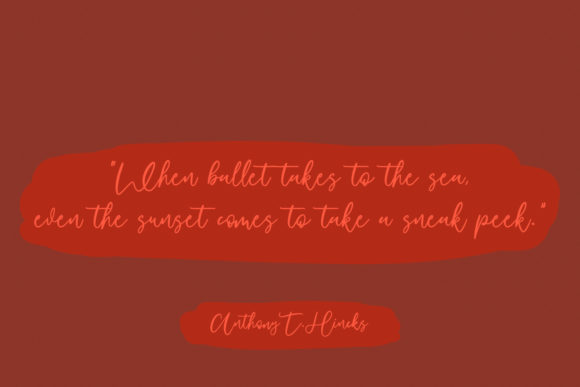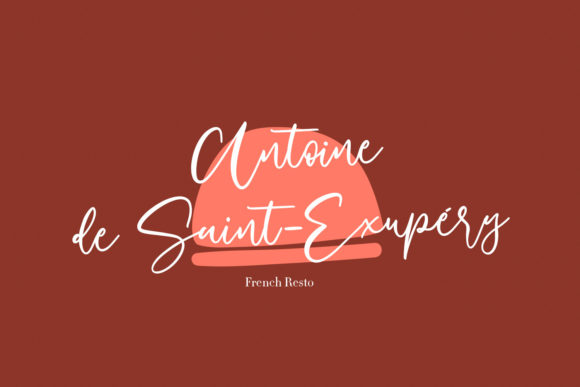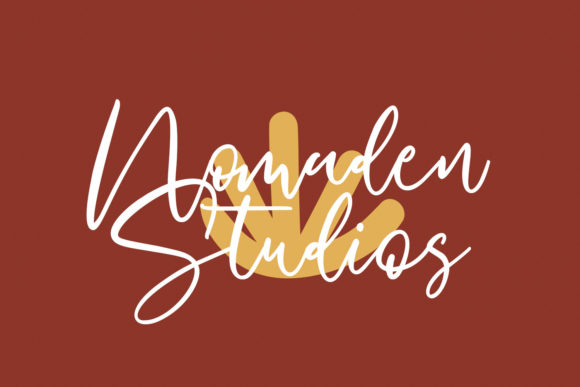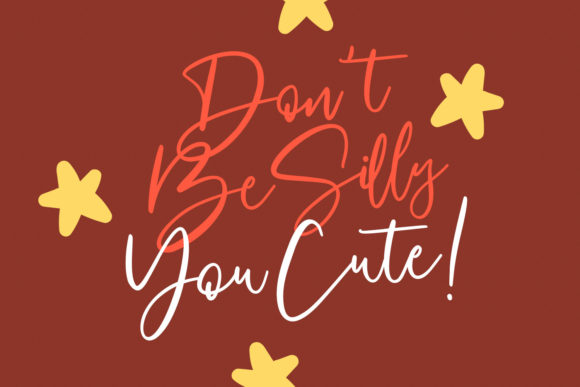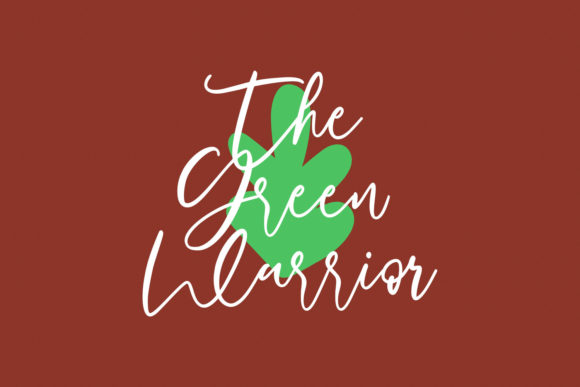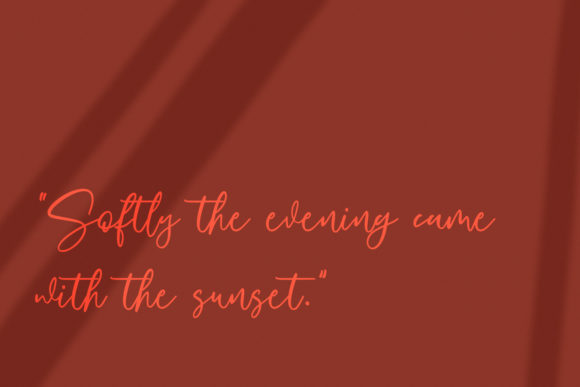
Introduction to Blisslayton Font
Blisslayton is a beautiful, stylish and neat handwritten font.
It will add a luxury spark to any design project that you wish to create Fall in love with its incredibly versatile style and use it to create spectacular designs.
Blisslayton Font offers exceptional quality and versatility, making it a valuable addition to your design toolkit. Whether you’re creating for personal projects or commercial use, Blisslayton Font delivers professional results.